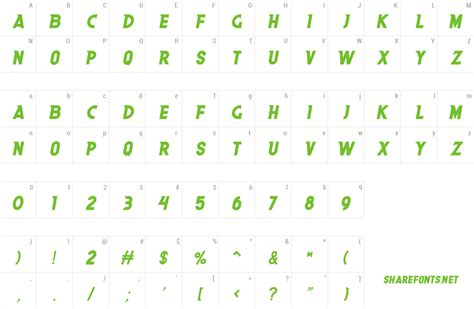
Oschappyluckysc Font: The Ultimate Guide
Hey guys! Ever stumbled upon a font that just screams fun, quirky, and totally unique? Well, let me introduce you to the Oschappyluckysc font ! This typeface is a real gem for anyone looking to add a dash of personality to their projects. Whether you’re designing a playful logo, crafting eye-catching social media graphics, or even jazzing up a presentation, Oschappyluckysc is your go-to font. In this ultimate guide, we’re diving deep into everything you need to know about this awesome font, from its characteristics and best uses to where you can find it and how to make the most of it. So, buckle up and get ready to unleash your creativity with Oschappyluckysc!
What is Oschappyluckysc Font?
So, what exactly is the Oschappyluckysc font ? At its core, it’s a display font, meaning it’s designed to be used in larger sizes to catch the eye. Think headings, titles, and anything you want to stand out. But what sets Oschappyluckysc apart is its playful, almost hand-drawn aesthetic. The characters have a whimsical feel, with slight imperfections and irregularities that give it a unique charm. It’s not your typical sterile, corporate-looking font; instead, it brings a sense of warmth and personality to any design. The font maintains readability while still being visually interesting, a balance that’s hard to strike but that Oschappyluckysc manages beautifully. Each letter seems to have its own little story, contributing to an overall aesthetic that is both engaging and memorable. Whether you’re aiming for a vintage vibe or a modern, quirky feel, Oschappyluckysc fits the bill. It’s this versatility that makes it a favorite among designers who want to add a touch of the unexpected to their work. Plus, its unique style ensures that your projects will stand out from the crowd, making it an invaluable tool in your creative arsenal. So, if you’re looking for a font that breaks the mold and injects some fun into your designs, Oschappyluckysc is definitely worth exploring!
Key Characteristics of Oschappyluckysc
Let’s break down the key characteristics of Oschappyluckysc font that make it so special. First off, the hand-drawn feel is super prominent. It looks like someone actually sat down and drew each letter, giving it a personal and authentic touch. This is achieved through slightly uneven lines and varying stroke widths. Another standout feature is its whimsical letterforms . The characters aren’t perfectly symmetrical or uniform; they have little quirks and unique shapes that add to the font’s playful nature. This prevents the font from feeling too rigid or formal, making it perfect for designs that need a bit of levity. Also, Oschappyluckysc often includes unique ligatures and alternates , which are special pairings of letters that create interesting visual combinations. These can add an extra layer of flair and customization to your typography. The overall vibe is friendly and approachable , making it ideal for projects that want to convey a sense of warmth and authenticity. It’s the kind of font that makes people smile. Furthermore, the font’s legibility is surprisingly good, despite its quirky design. It’s easy to read in various sizes, which is crucial for ensuring your message gets across effectively. Finally, Oschappyluckysc has a distinct personality that sets it apart from more generic fonts. It’s not just a typeface; it’s a statement. These characteristics combine to make Oschappyluckysc a font that is both visually appealing and highly functional, suitable for a wide range of design applications. Whether you’re designing a logo, creating marketing materials, or working on a website, Oschappyluckysc brings a unique charm that can elevate your project to the next level.
Best Uses for Oschappyluckysc Font
Now, where does the Oschappyluckysc font really shine? Well, it’s incredibly versatile, but here are some of the best uses I’ve found. For branding , Oschappyluckysc is fantastic if you’re aiming for a playful, approachable, or handcrafted vibe. Think logos for bakeries, kids’ stores, or creative agencies. It instantly adds personality and memorability. In social media graphics , this font can really make your posts pop. Use it for headlines, quotes, or to highlight key information. Its unique look will grab attention in a crowded feed. Invitations and greeting cards are another perfect fit. Whether it’s a birthday party, baby shower, or just a friendly hello, Oschappyluckysc adds a touch of warmth and whimsy. Packaging design can also benefit from this font, especially for products targeting children or those with a handcrafted appeal. Imagine it on a label for homemade jams or organic snacks! Website headers and banners are another great place to use Oschappyluckysc. It can add visual interest and draw visitors in, making your site more engaging. T-shirt designs also work well, particularly for fun, casual brands. A witty slogan in Oschappyluckysc can be a real conversation starter. Book covers can also leverage this font, especially for children’s books or lighthearted novels. Its playful nature can instantly convey the tone of the story. In presentations , use Oschappyluckysc sparingly for headings or key points to add visual interest without overwhelming your audience. Posters and flyers also benefit from its eye-catching design, making your message more memorable. Generally, Oschappyluckysc works best when you want to convey a sense of fun, creativity, and authenticity. It’s not the best choice for formal or corporate settings, but for anything that needs a touch of personality, it’s a winner. Its versatility makes it a valuable asset in any designer’s toolkit, ready to bring a unique charm to a wide array of projects.
Tips for Using Oschappyluckysc Effectively
Alright, let’s talk about tips for using Oschappyluckysc effectively . First off, don’t overuse it . Because it’s such a distinctive font, using it too much can be overwhelming. Use it sparingly for headings, logos, or short bursts of text to make the most impact. Pair it wisely . Oschappyluckysc works best when paired with a simpler, more neutral font for body text. Think sans-serif fonts like Open Sans or Lato, or a clean serif font like Merriweather. This contrast will make Oschappyluckysc stand out even more while keeping your overall design readable. Consider the context . This font isn’t suitable for every project. It’s perfect for designs that need a playful, whimsical, or handcrafted feel, but it’s not ideal for formal or corporate settings. Adjust the spacing . Because Oschappyluckysc has unique letterforms, you might need to adjust the letter spacing (tracking) and line height (leading) to ensure it looks its best. Experiment with different settings to find what works best for your design. Use color strategically . Oschappyluckysc can look great in bold, bright colors, but be mindful of contrast and readability. Make sure the color you choose complements the font and doesn’t make it hard to read. Take advantage of ligatures and alternates . If Oschappyluckysc comes with ligatures or alternate characters, use them to add extra flair and customization to your typography. These can create unique and eye-catching combinations. Test it in different sizes . Make sure Oschappyluckysc looks good in both large and small sizes. Some fonts lose their legibility when they’re too small, so always test it out. Keep it consistent . If you’re using Oschappyluckysc in a branding project, make sure you use it consistently across all your materials to maintain a cohesive look. Get inspired . Look at how other designers have used Oschappyluckysc to get ideas and inspiration for your own projects. Platforms like Behance and Dribbble are great resources for finding creative typography examples. By following these tips, you can harness the full potential of Oschappyluckysc and create stunning designs that stand out from the crowd.
Conclusion
In conclusion, the Oschappyluckysc font is a fantastic addition to any designer’s toolkit. Its unique, hand-drawn aesthetic brings a sense of fun and personality to a wide range of projects. Whether you’re designing logos, creating social media graphics, or jazzing up invitations, Oschappyluckysc can help you make a statement. Remember to use it wisely, pair it with complementary fonts, and consider the context of your design. With its playful letterforms and versatile nature, Oschappyluckysc is sure to become one of your go-to fonts for adding a touch of whimsy and charm to your creations. So go ahead, download Oschappyluckysc, and start experimenting. Unleash your creativity and see how this awesome font can transform your designs! Happy designing, everyone!